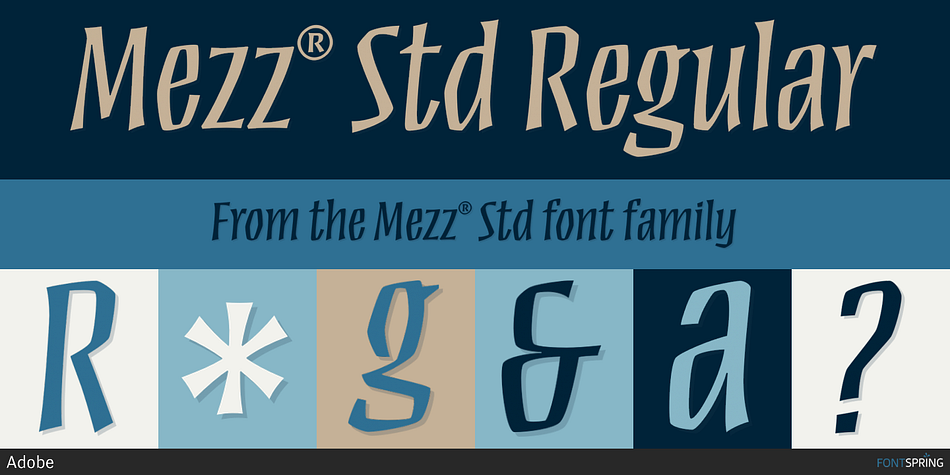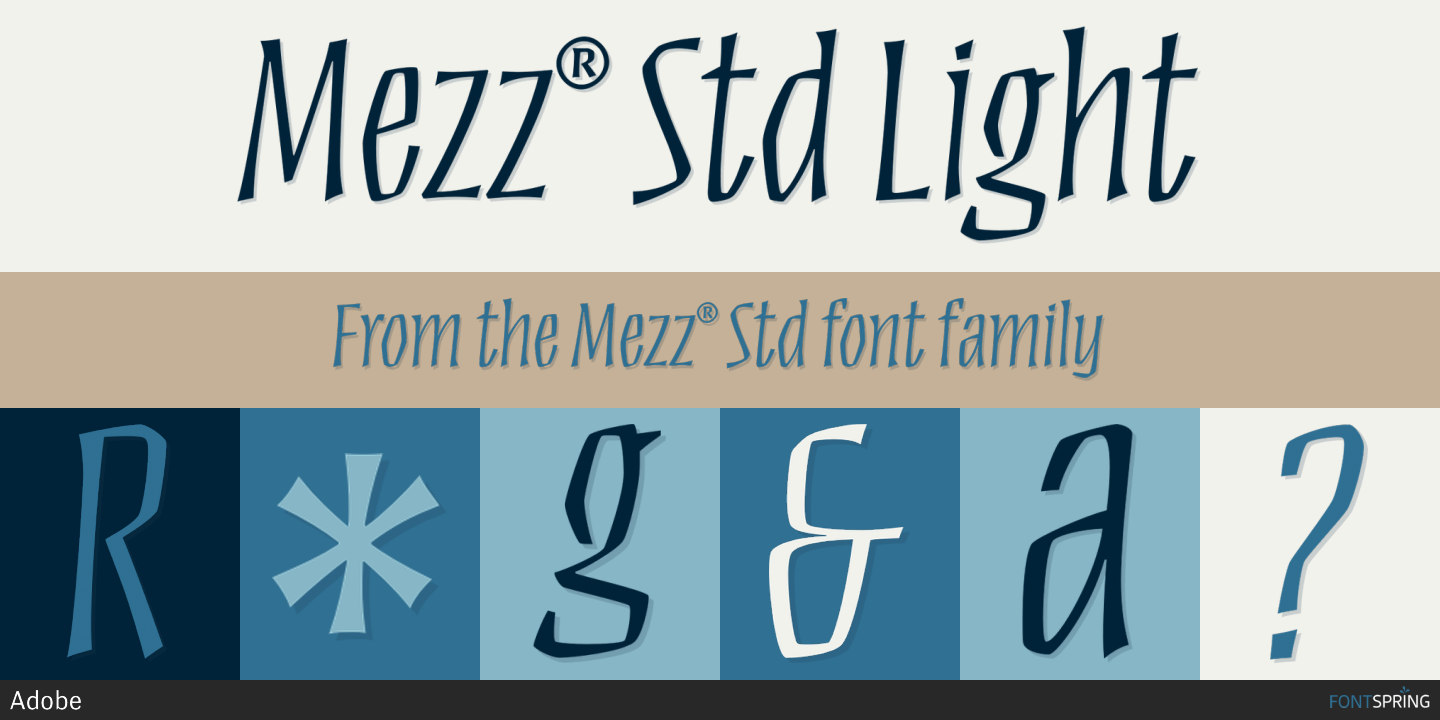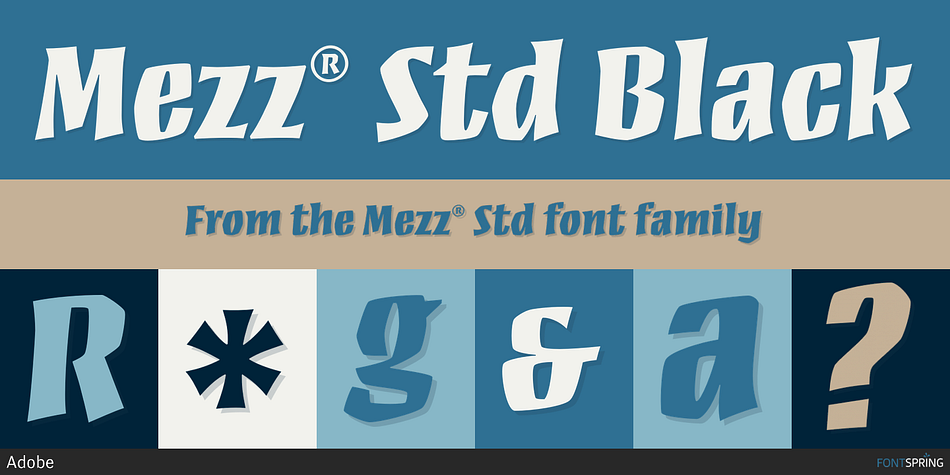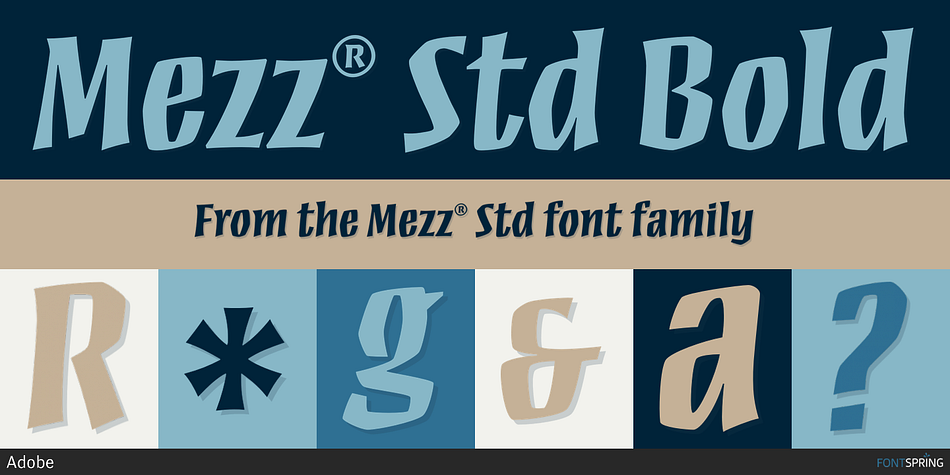
Mezz® Std is a display sans font family. This typeface has five styles and was published by Adobe.
Clarinetist Milton “Mezz” Mezzrow (1899-1972) was a remarkable jazz musician-hipster-raconteur (anyone interested should read his autobiography Really the Blues.) His sharp tone and serpentine lines inspired English letter cutter-lettering artist-jazz lover Michael Harvey to create a condensed, oblique display typeface with the influence of the chisel much in evidence, to honor Mezz. Vertical formats such as book jackets and posters will be invigorated when Mezz is the display face